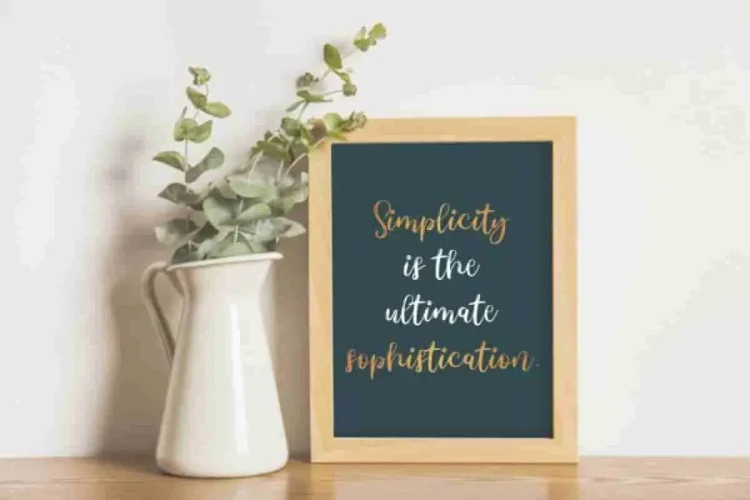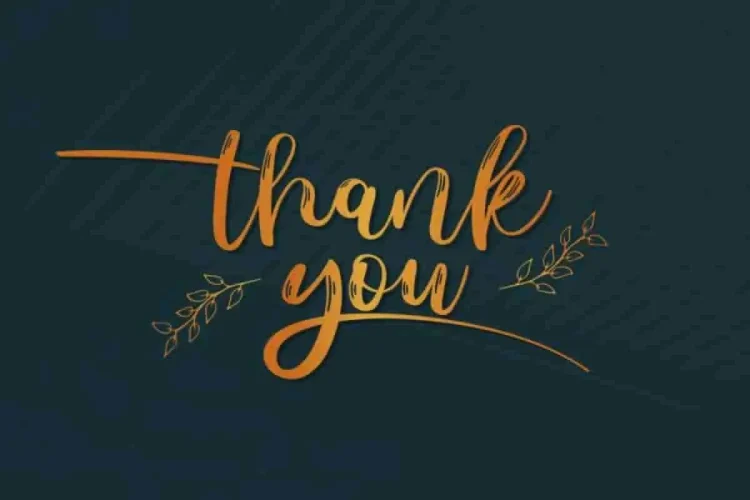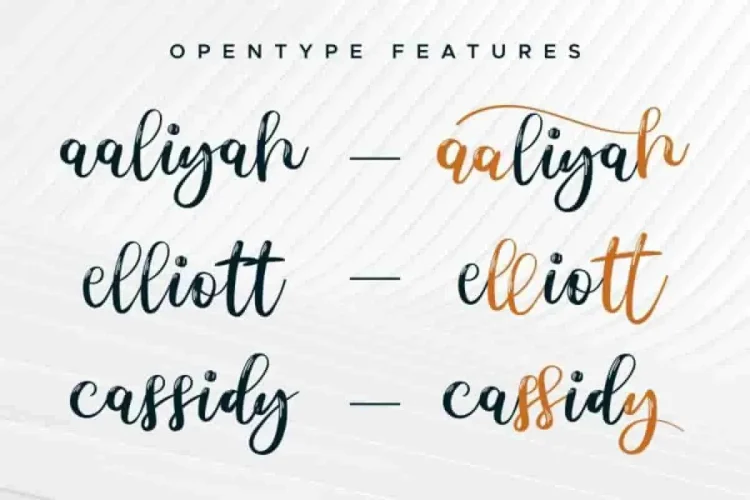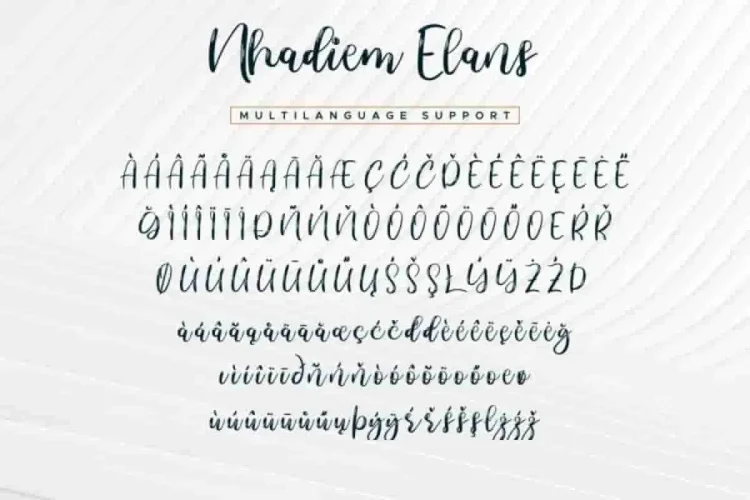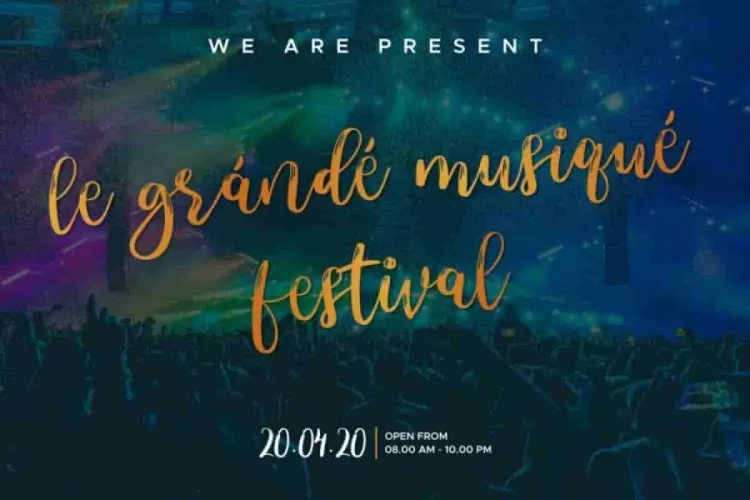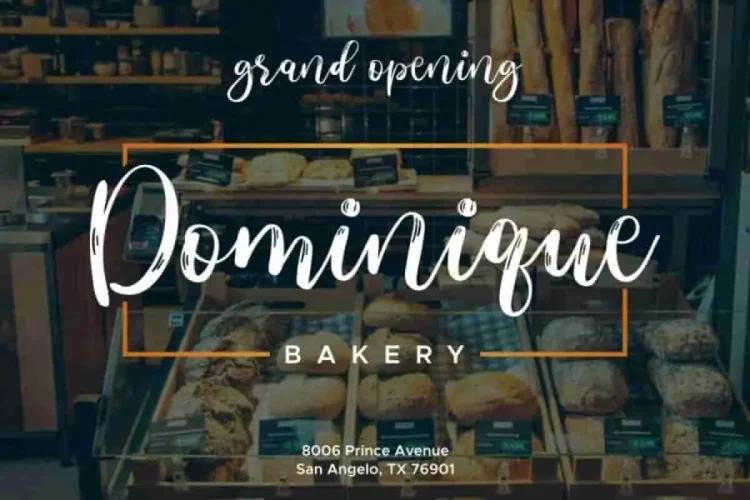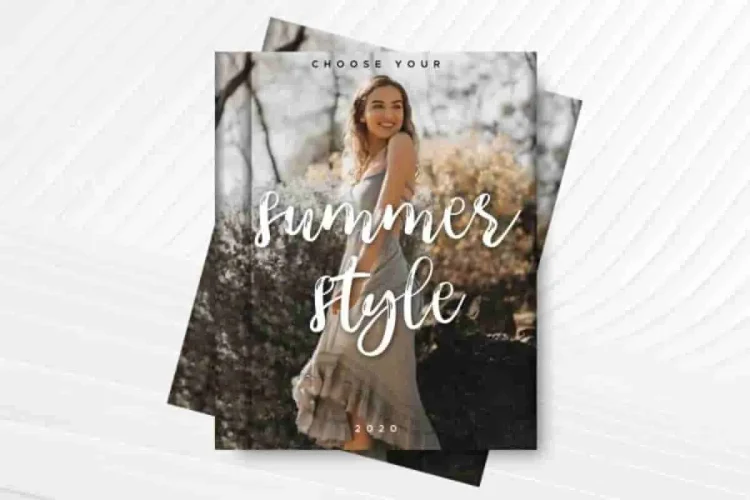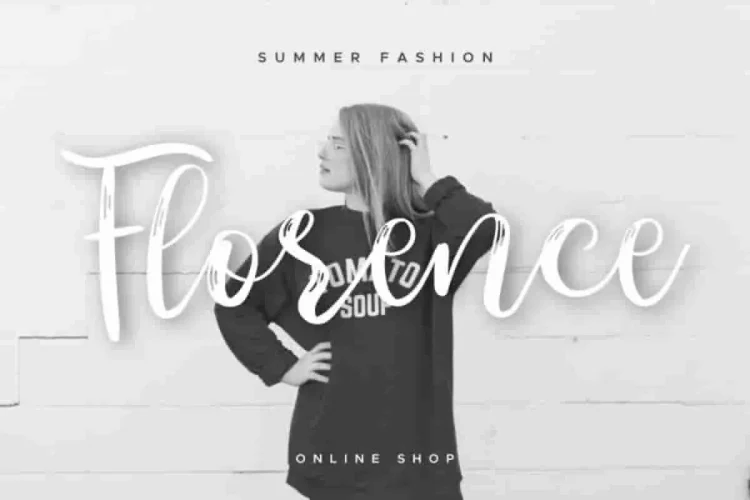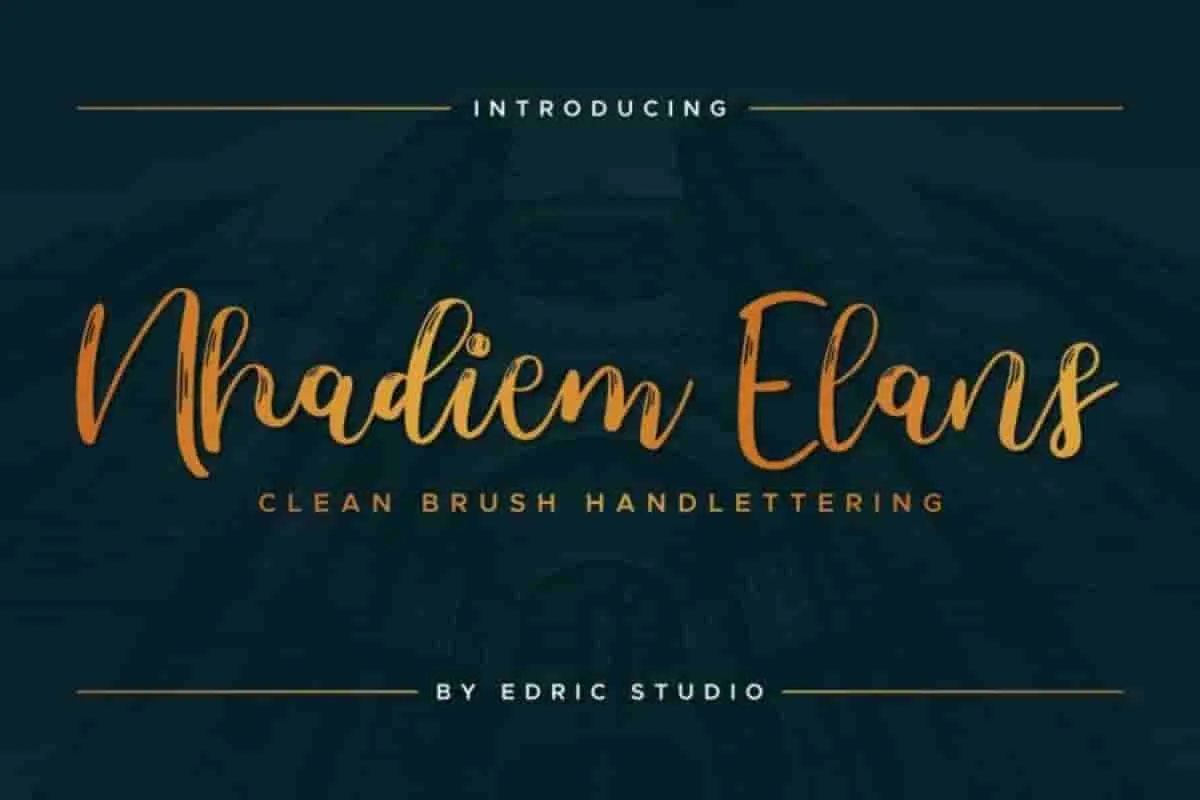
Nhadiem Elans Calligraphy Font
To begin with, Nhadiem Elans Font. was made in 2019 from Bandung and Garut Indonesia by our artists : Fajar Saepul and Sarah Suci.
This font has a stunning calligraphy style with a rough wet brush effect. Moreover, this font has a stunning characters set, perfectly managed with well spaced and kerning. As a result, the style character of this font is elegant, stylish, sophisticated and classic brush lines. Therefore, you won’t find a font like Nhadiem Elans anywhere else.
You can explore any of your projects with the exclusive glyphs of Nhadiem Elans Font. Specifically, Nhadiem Elans works beautifully for a wide range of projects (need extended license), including : logotype, flyer, stationery, business card, signage, flyer, brochure etc.  With your great creativity, there’s no limit creation using with this font. Furthermore, this font matchs all categories professionals : law firm, real estate, wedding, advertisement, florist, makeup artist, musician, etc